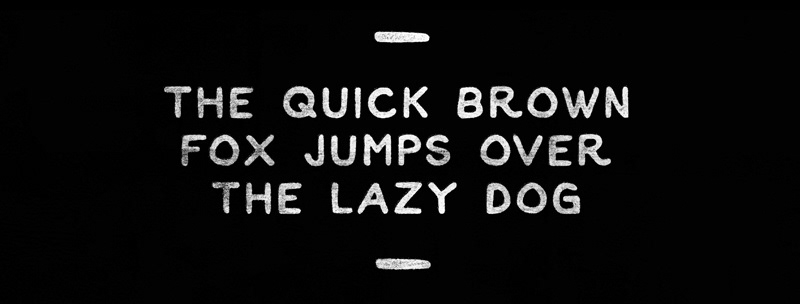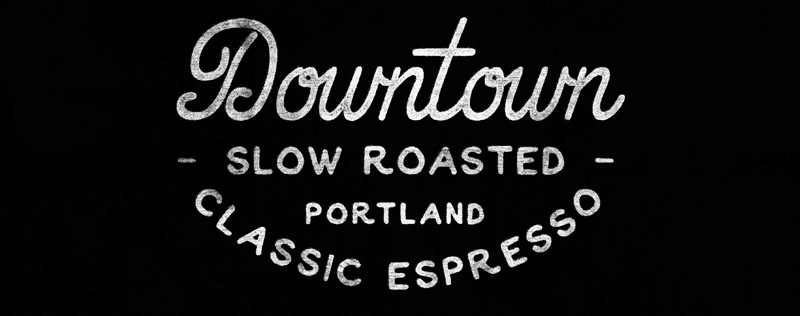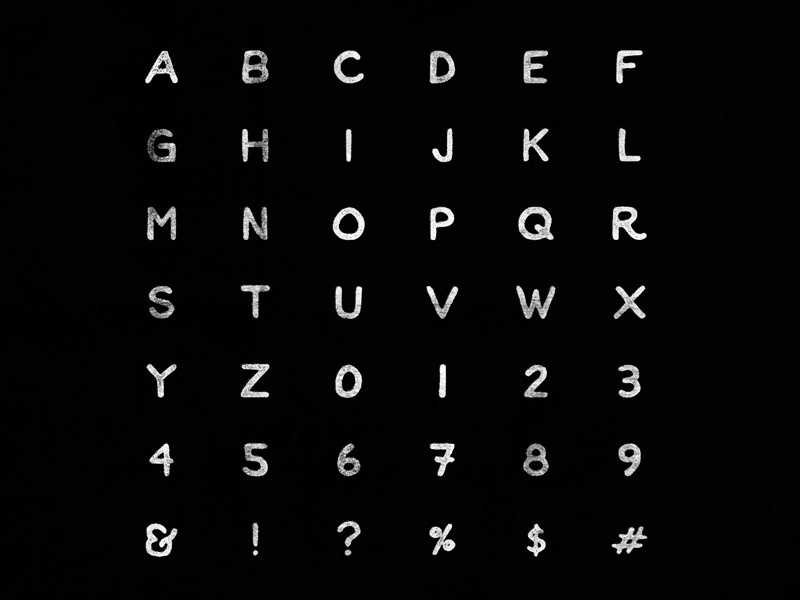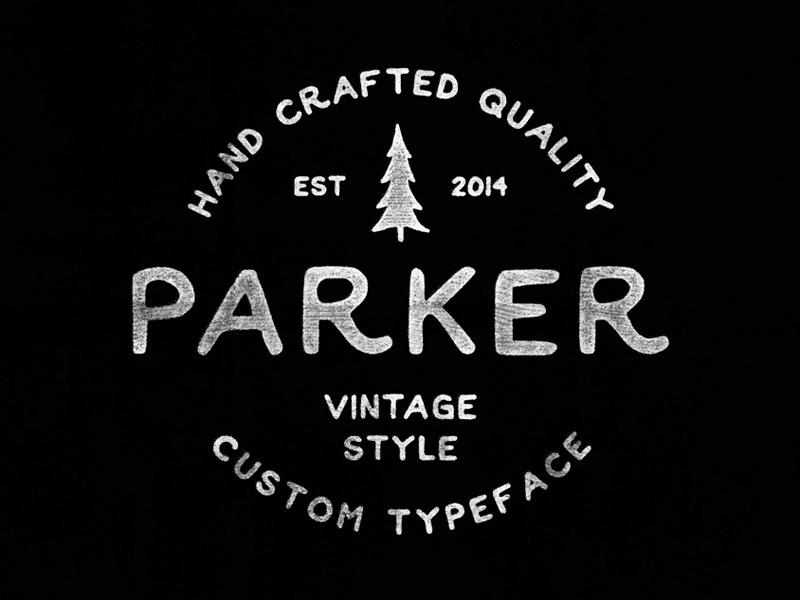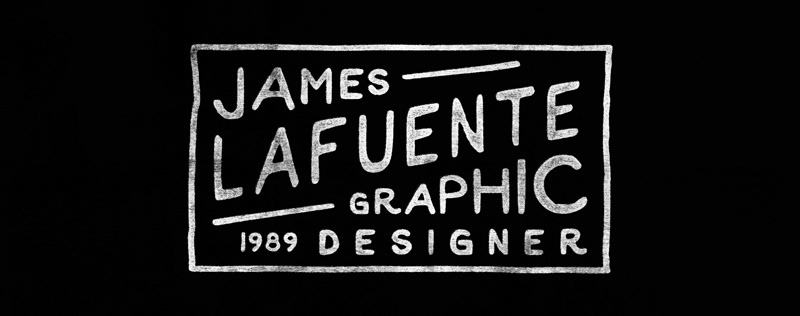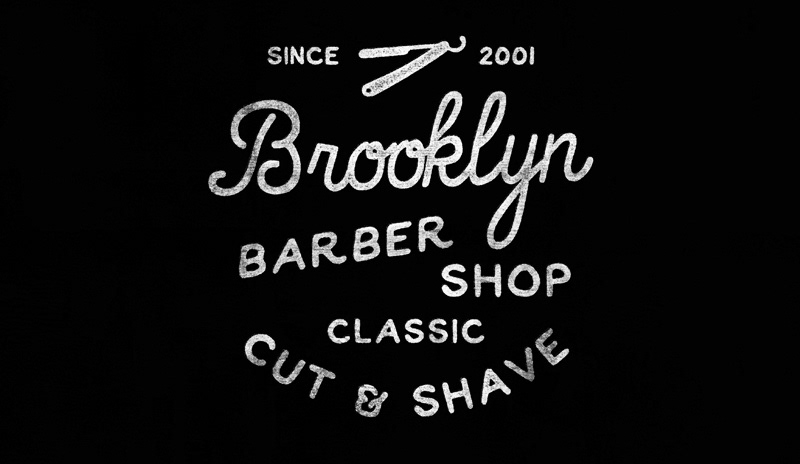
Parker (Free Font)
Parker is a is a handmade vintage inspired font. It works great for vintage design, t-shirts, logo, posters and more. Free for personal use.